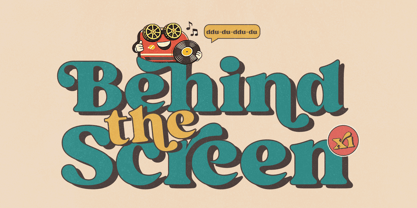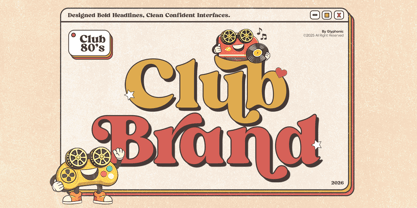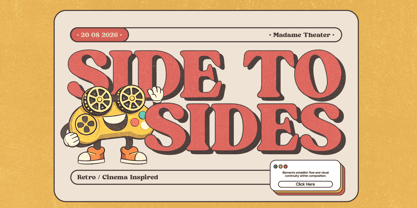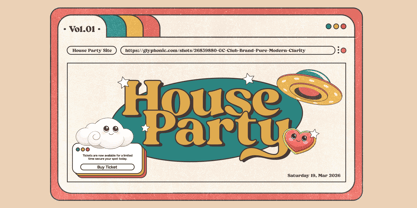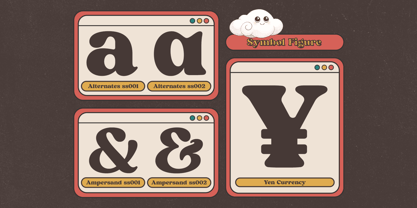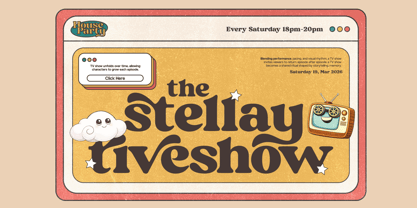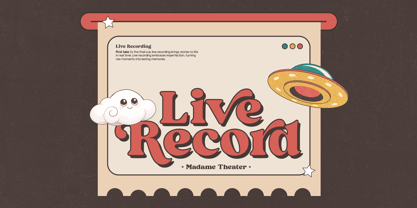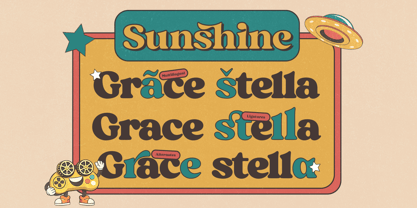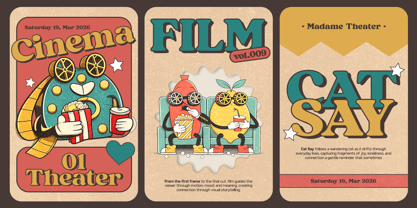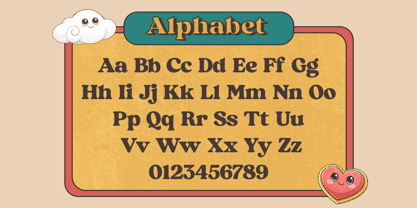
GC Club Brand
by Onyx Studio
The GC Club Brand Font Family was designed by Muhammad Hafiizh Solana and published by Onyx Studio. GC Club Brand contains 2 styles and family package options. More about this family
GC Club Brand - Bold Retro Serif is a powerful retro-inspired serif typeface designed to make a bold statement. Influenced by vintage club culture, classic branding, and old-school display typography, this font combines strong serif structures with confident curves to create a striking and memorable presence. Built for impactful headlines and standout branding, GC Club Brand is perfect for logos, posters, merchandise, packaging, editorial layouts, and retro-themed visual identities. Its bold weight and distinctive letterforms deliver attitude, energy, and timeless character while maintaining clarity and balance. Carefully crafted proportions and solid serif detailing ensure versatility across both print and digital media. Whether you’re creating nostalgic club posters or strong brand visuals, this typeface brings depth, personality, and vintage strength to your typography. Features: - Uppercase & Lowercase - Numbers & Punctuation - Bold Retro Serif Construction - Multilingual Support (170+ Languages) Make your typography louder, stronger, and unmistakably bold with GC Club Brand - Bold Retro Serif.
Designers: Muhammad Hafiizh Solana
Foundry: Onyx Studio